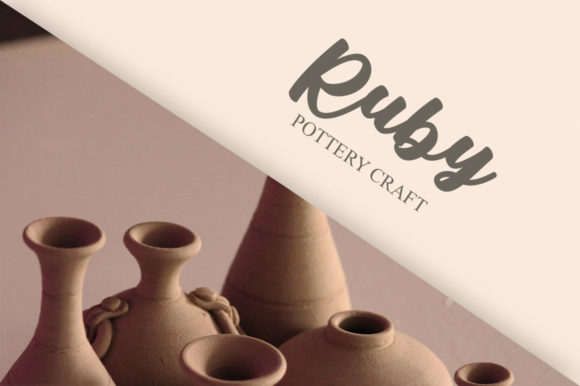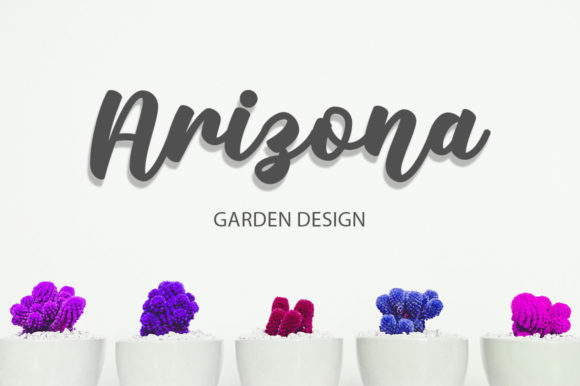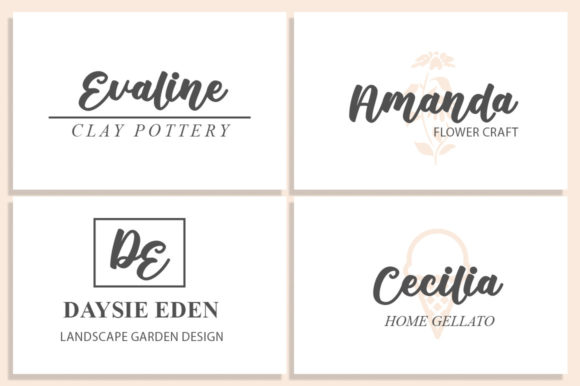
Introduction to Homemade Font
Homemade is a magical handwritten font.
It looks ravishing on invitations, thank you cards, quotes, greeting cards, logos, business cards and every other design which needs a customized touch .
Key Features of Homemade Font
Why Choose Homemade Font?
Homemade Font offers exceptional quality and versatility, making it a valuable addition to your design toolkit. Whether you’re creating for personal projects or commercial use, Homemade Font delivers professional results.